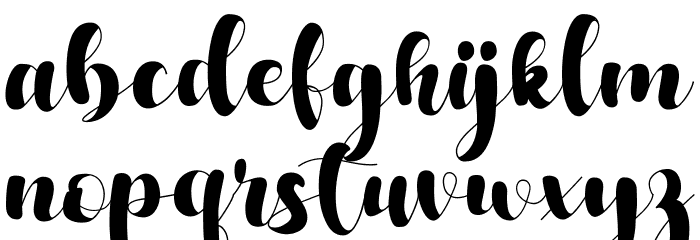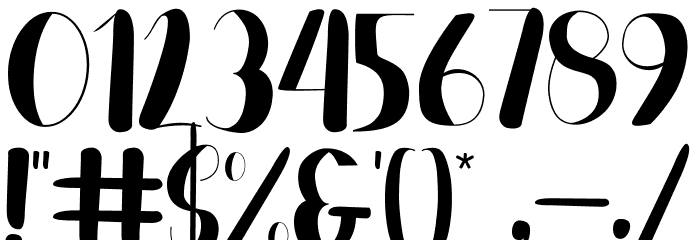
honey buddy Font
This font features a playful and elegant script style with a modern twist. The characters are designed with a combination of thick and thin strokes, creating a dynamic contrast that adds a sense of movement and fluidity. The uppercase letters are bold and expressive, while the lowercase letters maintain a more delicate and flowing appearance. The numerals and special characters are crafted with the same attention to detail, ensuring consistency throughout. This font's unique style makes it suitable for a variety of creative projects.
A playful and elegant script font with dynamic contrast and fluidity.
- Proposed Projects: Ideal for wedding invitations, branding, greeting cards, and decorative posters.
- Use Case: Logos, Headlines, Decorative text